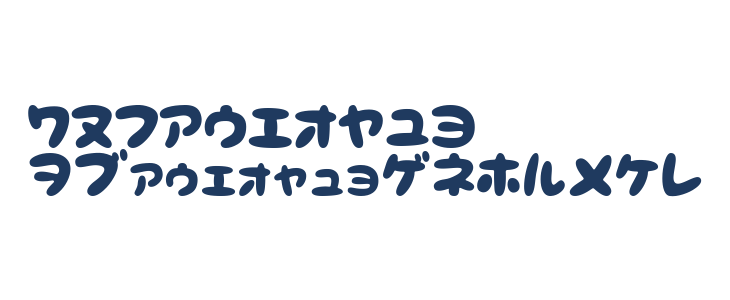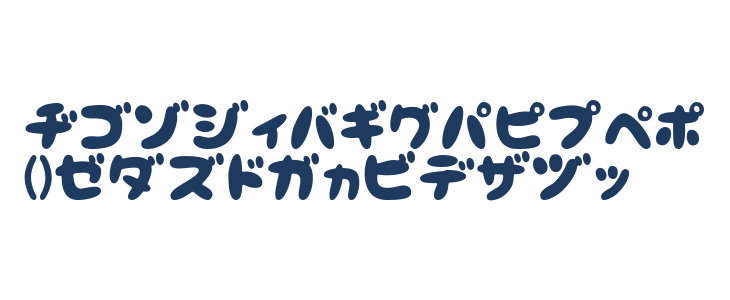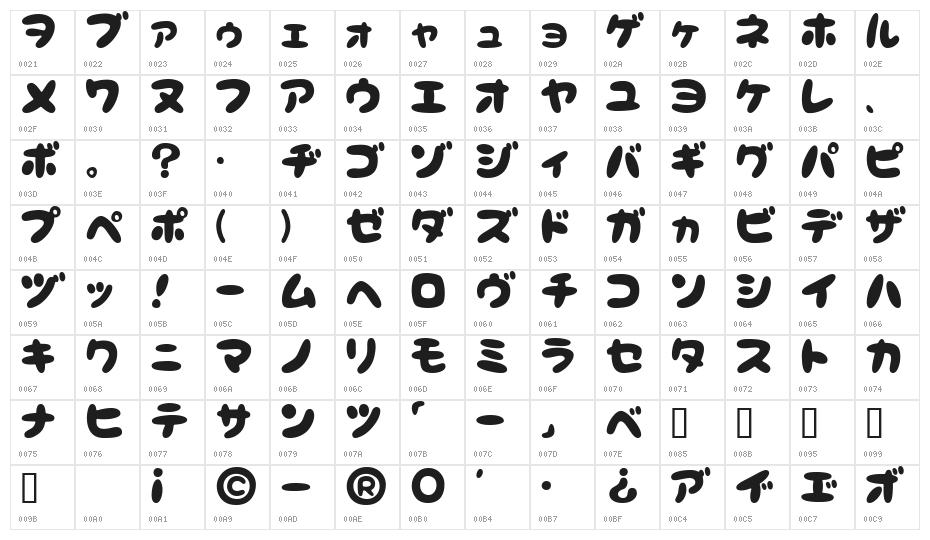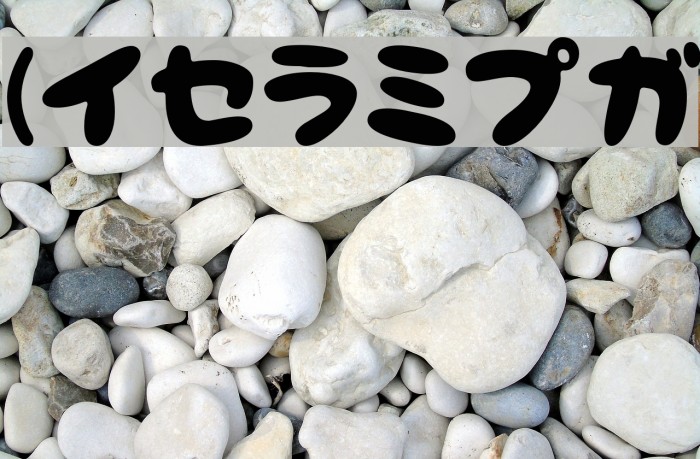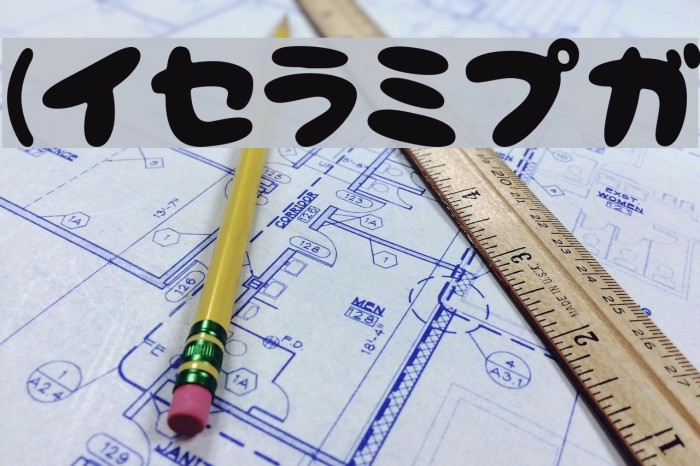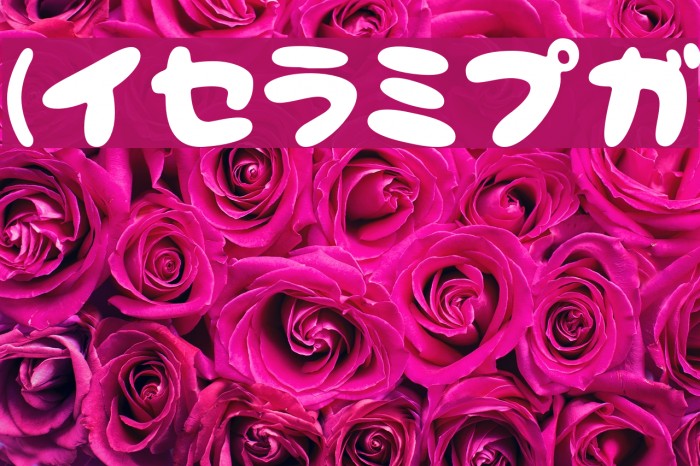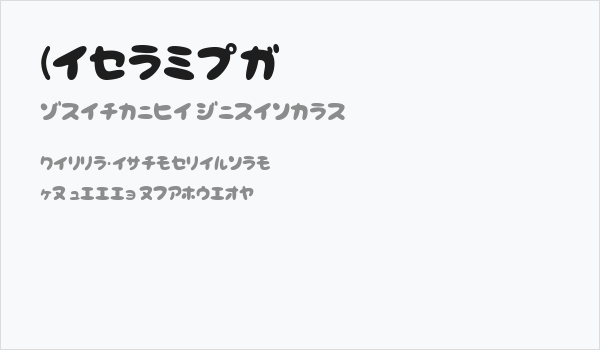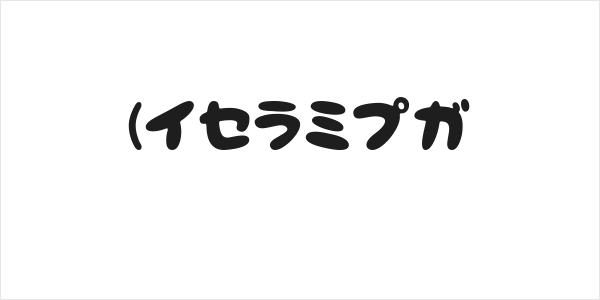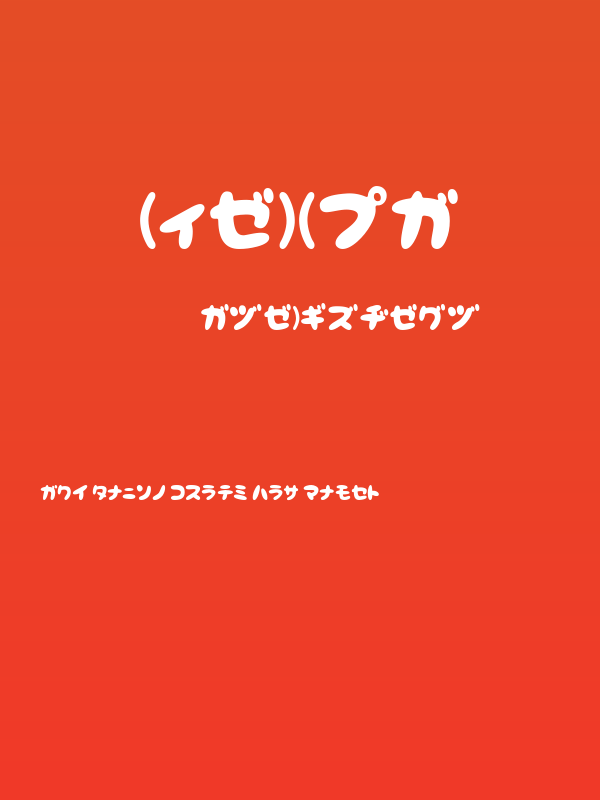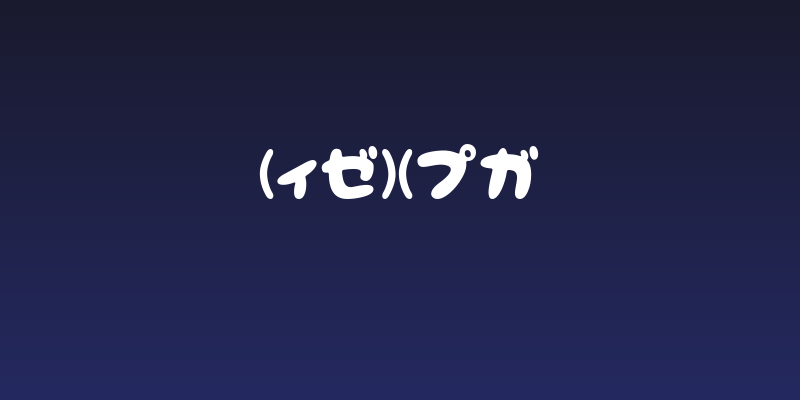
NeponKT Font
NeponKT Description
This font features a playful and bold style with rounded edges and a bubbly appearance. The characters are thick and have a cartoonish feel, making them stand out with a friendly and approachable vibe. The strokes are consistent in thickness, giving the font a uniform look. The overall design is informal and whimsical, suitable for creative and fun projects. The characters are well-spaced, ensuring readability while maintaining a compact and cohesive appearance.
| Proposed Projects | Ideal for children's books, comic strips, playful branding, and posters. |